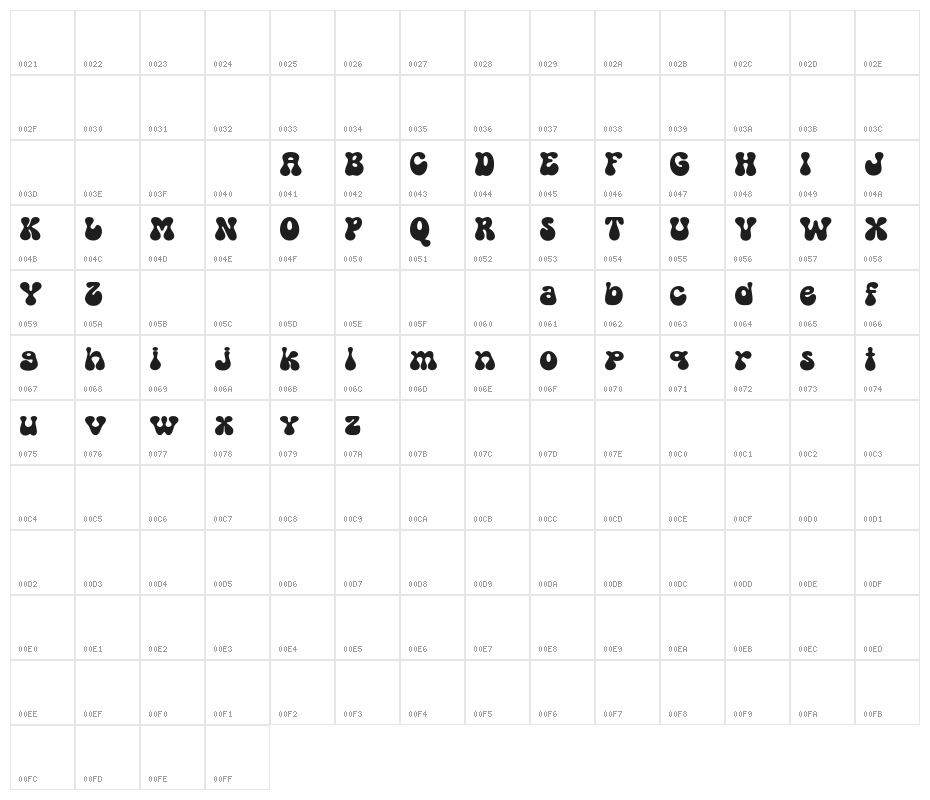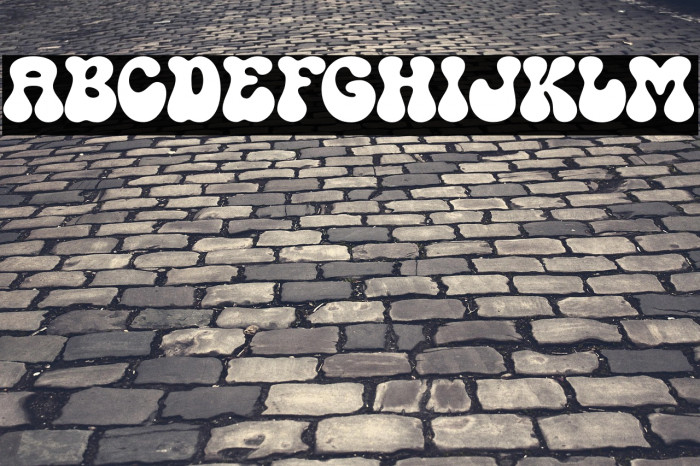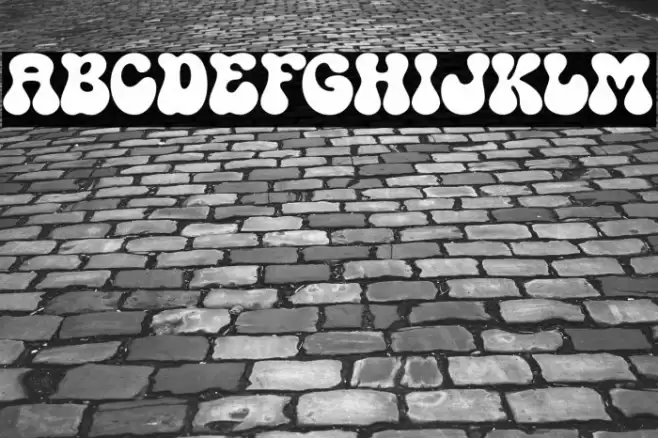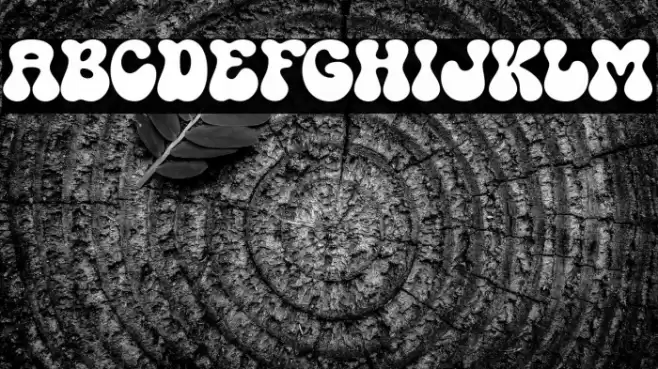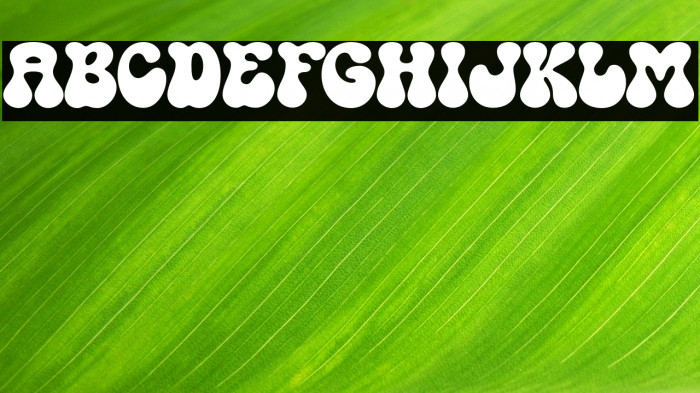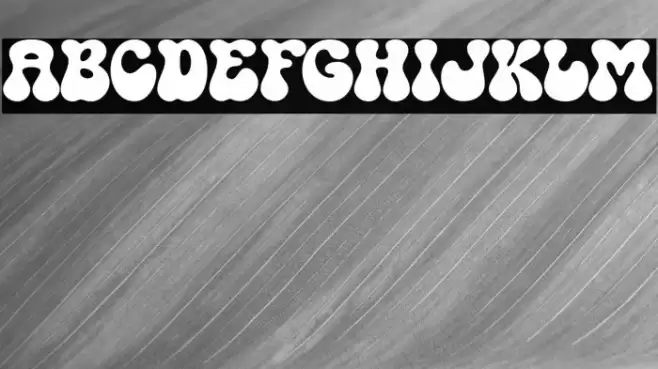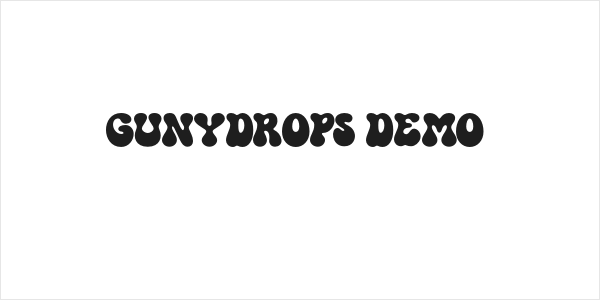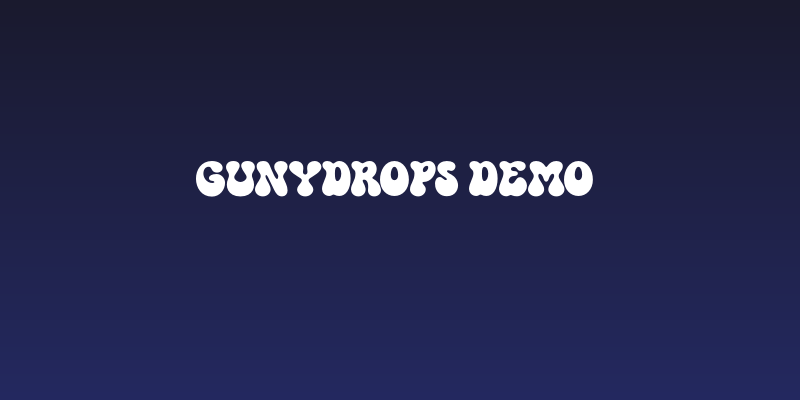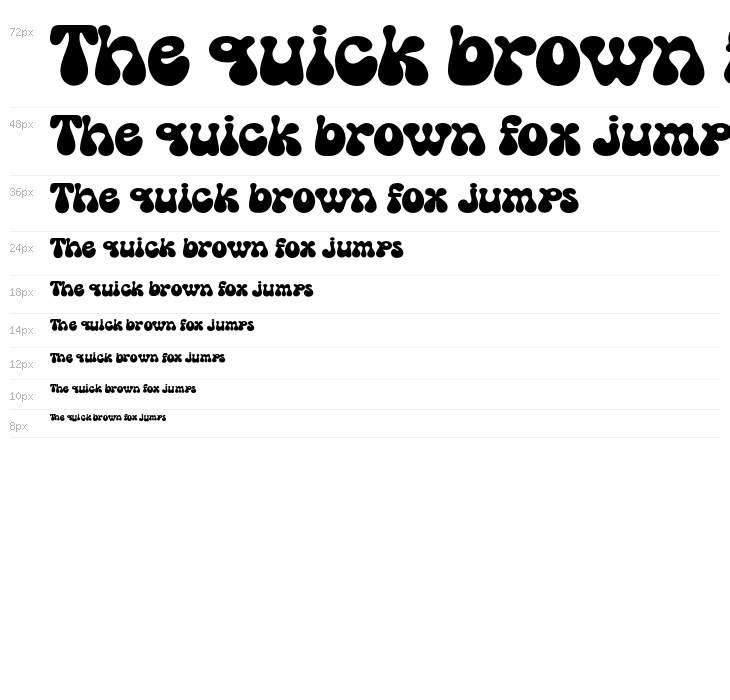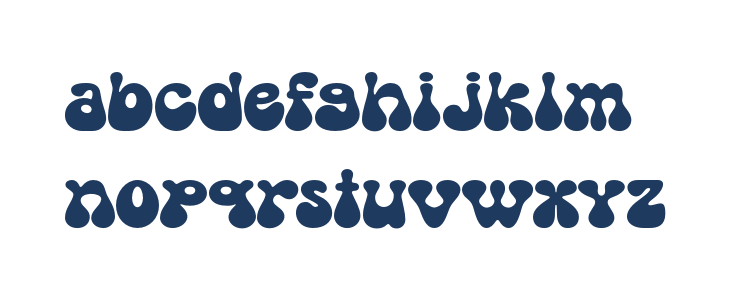
GUNYDROPS DEMO Font
GUNYDROPS DEMO Description
This playful and bold font features a unique, bubbly design that exudes a sense of fun and creativity. The characters are rounded with exaggerated curves and a whimsical style, making it ideal for projects that aim to capture attention and convey a lighthearted tone. The font's thick strokes and distinctive shapes give it a strong presence, while the rounded edges soften its overall appearance. It's perfect for designs that require a touch of humor or a retro vibe, such as children's books, party invitations, or playful branding.
| Overall Style | Playful, Retro |
| Proposed Projects | Ideal for children's books, party invitations, playful branding, and retro-themed designs. |